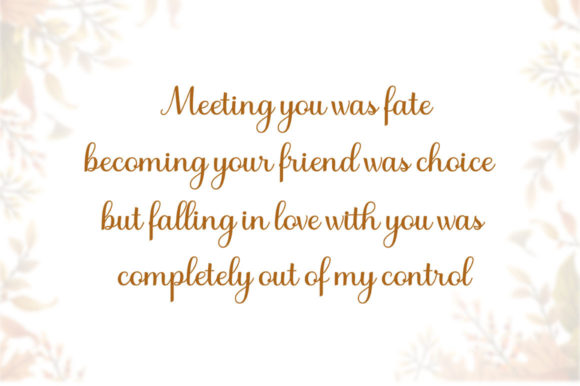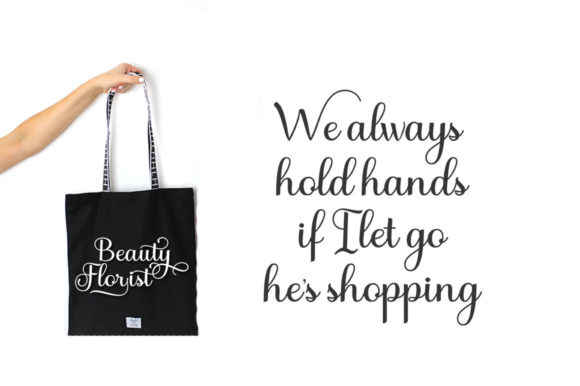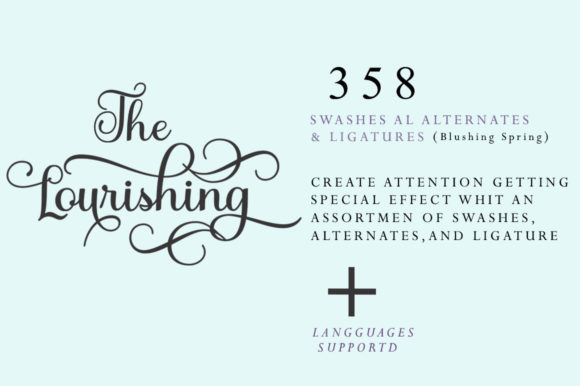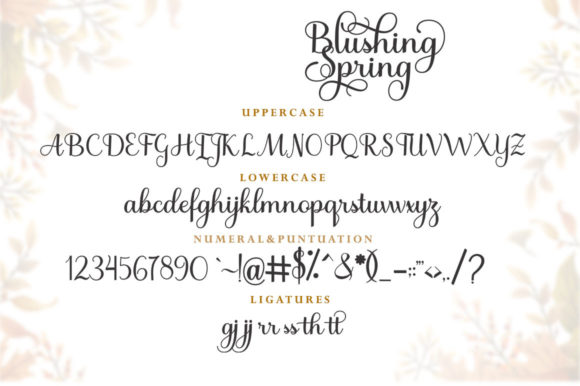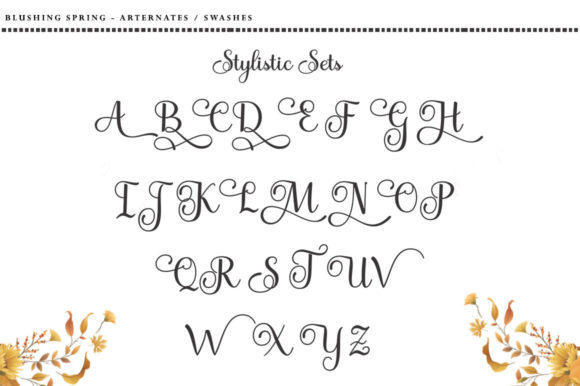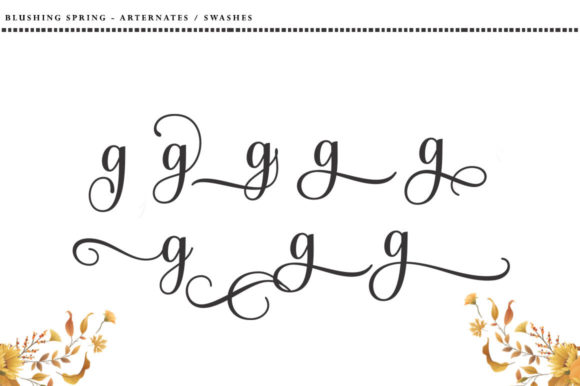
Discover the Magic of Blushing Spring Font
Have you ever been so inspired by a project that you couldn’t sleep at night, your mind racing with ideas and possibilities? That’s exactly what happened to us when we first laid eyes on the Blushing Spring Font. Its whimsical charm and elegant curves transported us to a world of romance and luxury, and we just knew we had to share it with you.
Blushing Spring Font is a beautiful calligraphy typeface designed to add a touch of sophistication to any design project. With its unique dance along the baseline, this font will elevate your work from ordinary to extraordinary. And the best part? It’s PUA encoded, making it easy to access all the amazing glyphs and ligatures you need to create stunning designs.
- Unique Characteristics: Blushing Spring Font features a unique blend of traditional and modern elements, with intricate details and soft, watercolor-inspired textures.
- Font Style: Script, Calligraphy
Blushing Spring Font Review
Overall, I think Blushing Spring Font is a lovely addition to any designer’s toolkit. Here are some things that work well: ✨
- Soft, watercolor-inspired aesthetic: This font captures the feeling of a gentle spring morning, perfect for designs that need a touch of whimsy.
- Variety of weights: Blushing Spring comes in multiple weights, allowing you to achieve a range of styles and moods.
- Great for hand-lettering: The font’s organic feel makes it ideal for hand-lettering and custom typography projects.
- Not ideal for body text: While Blushing Spring is perfect for headings and titles, it may not be the best choice for large blocks of body text due to its delicate nature.
- May require customization: Depending on your project’s specific needs, you may need to adjust the font’s spacing or letterforms to achieve the desired look.
In terms of overall impression, I think Blushing Spring is a great choice for designers who want to add a touch of elegance and sophistication to their work. It’s perfect for projects that require a soft, feminine aesthetic, but may not be the best fit for every design.
For best results, pair Blushing Spring Font with pastel colors and soft backgrounds.
For best results, use Blushing Spring Font with subtle texture overlays and soft gradients.
For best results, pair Blushing Spring Font with pastel colors and simple backgrounds.
Blushing Spring Font is ideal for:
Baby shower and nursery decorations
Valentine’s Day and spring-themed designs
Soft and feminine branding and marketing materials
Alternative Fonts for Blushing Spring Font
Ostrich Sans is a sans-serif font that offers a clean and modern look. It’s ideal for use in digital products, such as websites, mobile apps, and e-books. Ostrich Sans is a great alternative to Blushing Spring Font when you need a more minimalist and neutral font.
Comparison to Blushing Spring Font: While Blushing Spring Font has a softer and more elegant look, Ostrich Sans is more straightforward and easy to read. Ostrich Sans is also more versatile and can be used in a wider range of applications.
Aurora Font
Aurora is a beautiful, modern script font that’s perfect for use in creative projects, such as invitations, posters, and branding materials. It’s a great alternative to Blushing Spring Font when you need a more elegant and sophisticated font.
Comparison to Blushing Spring Font: While Blushing Spring Font has a more playful and whimsical look, Aurora is more refined and luxurious. Aurora is ideal for use in projects where you want to convey a sense of sophistication and elegance.
Canela Font
Canela is a beautiful, elegant script font that’s perfect for use in creative projects, such as wedding invitations, menus, and branding materials. It’s a great alternative to Blushing Spring Font when you need a more refined and sophisticated font.
Comparison to Blushing Spring Font: While Blushing Spring Font has a more playful and whimsical look, Canela is more refined and elegant. Canela is ideal for use in projects where you want to convey a sense of sophistication and luxury.
Q: What are the technical specifications of the Blushing Spring Font?
The Blushing Spring Font has a character set of 250 glyphs, including uppercase and lowercase letters, numbers, and punctuation marks. It supports a wide range of languages, including English, Spanish, French, German, and more. The font also includes ligatures and swashes to enhance its beauty and readability.